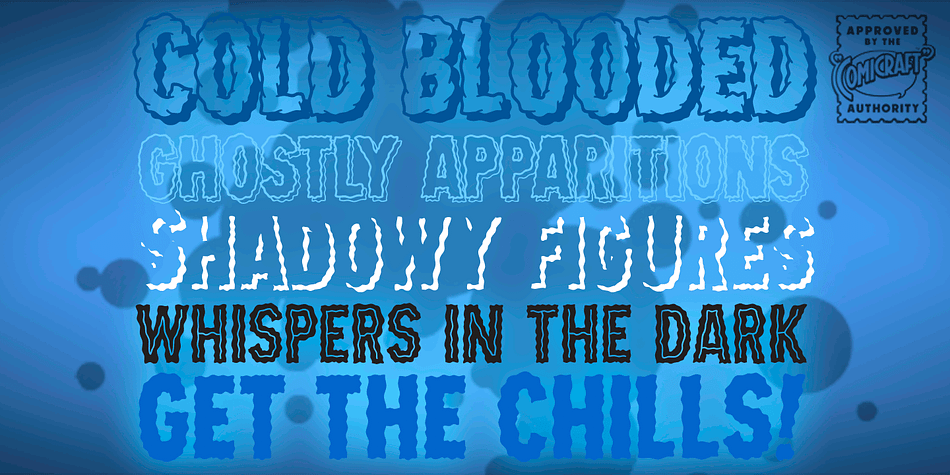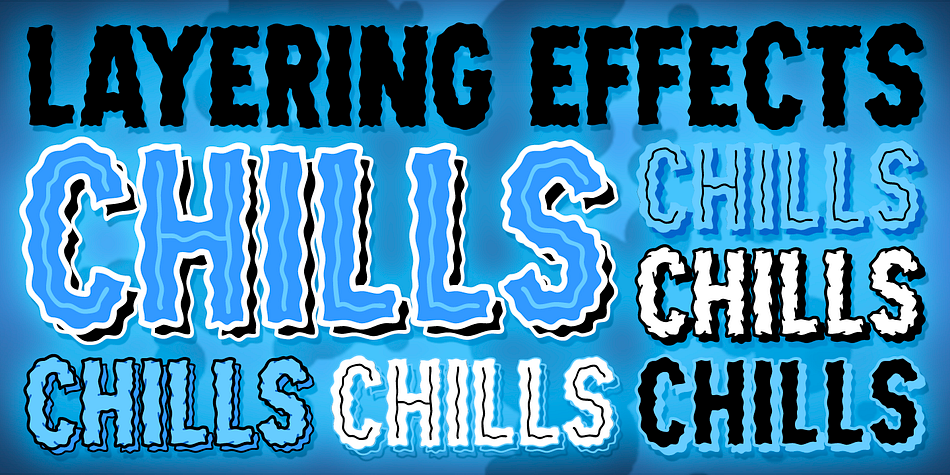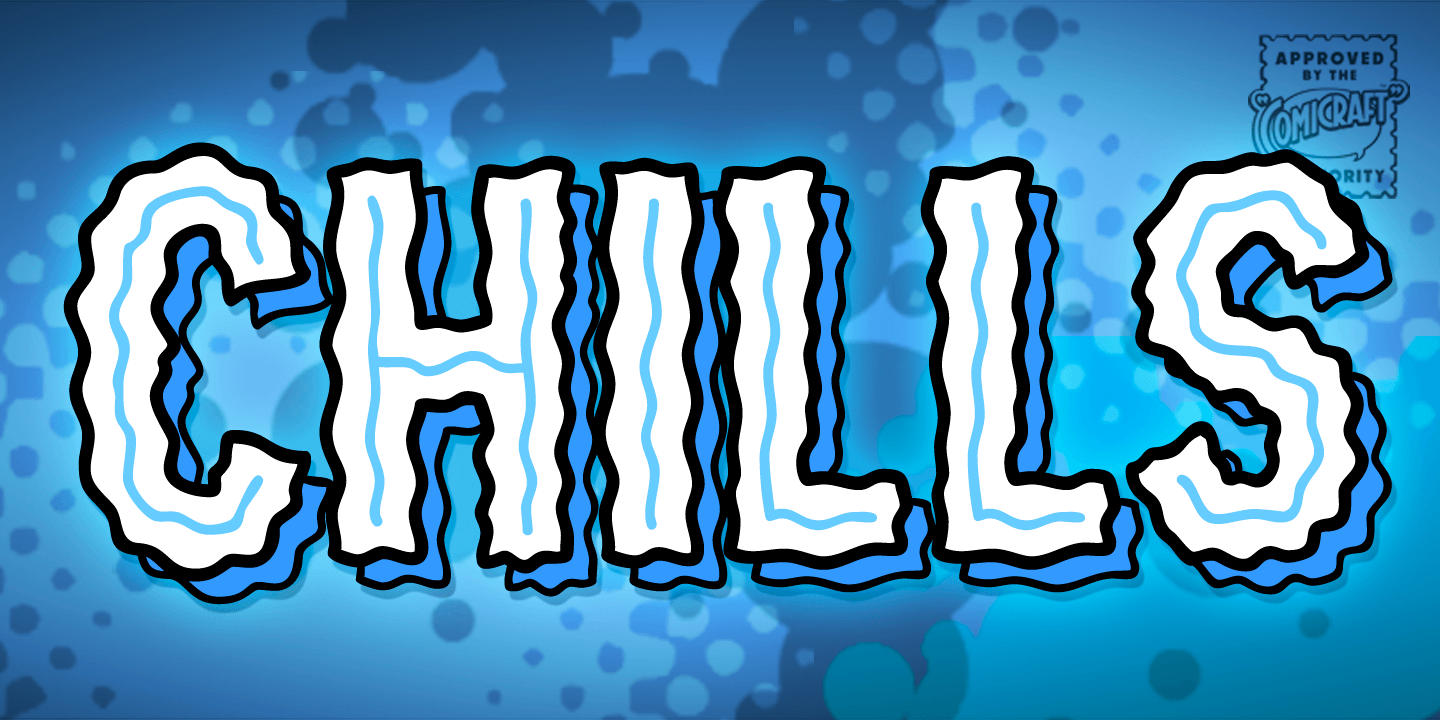
Designed by John Roshell, Chills is a comic and display font family. This typeface has five styles and was published by Comicraft.
Is that the trees rustling, or the hinges on the gate? Pull up your covers as daylight grows dim… there is indeed a chill of fear in your heart and the blood in your veins is turning cold. Try your best not to shiver and shake… The Iceman cometh!